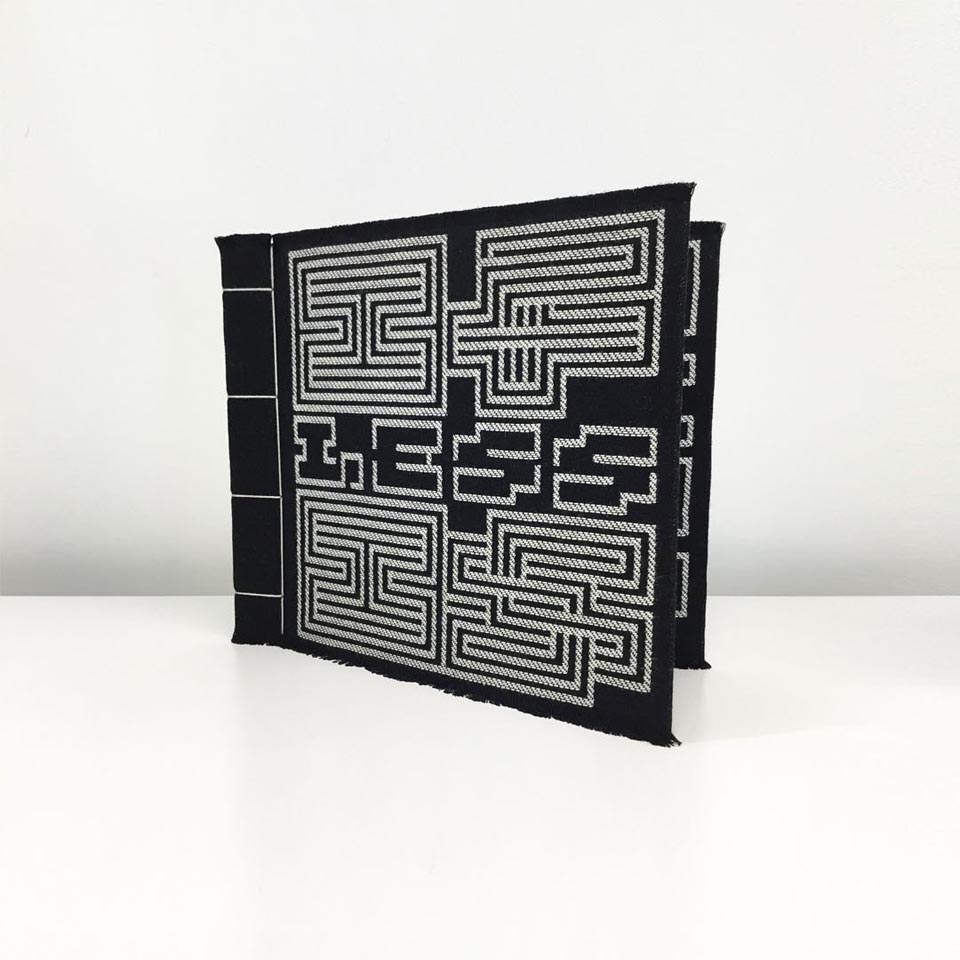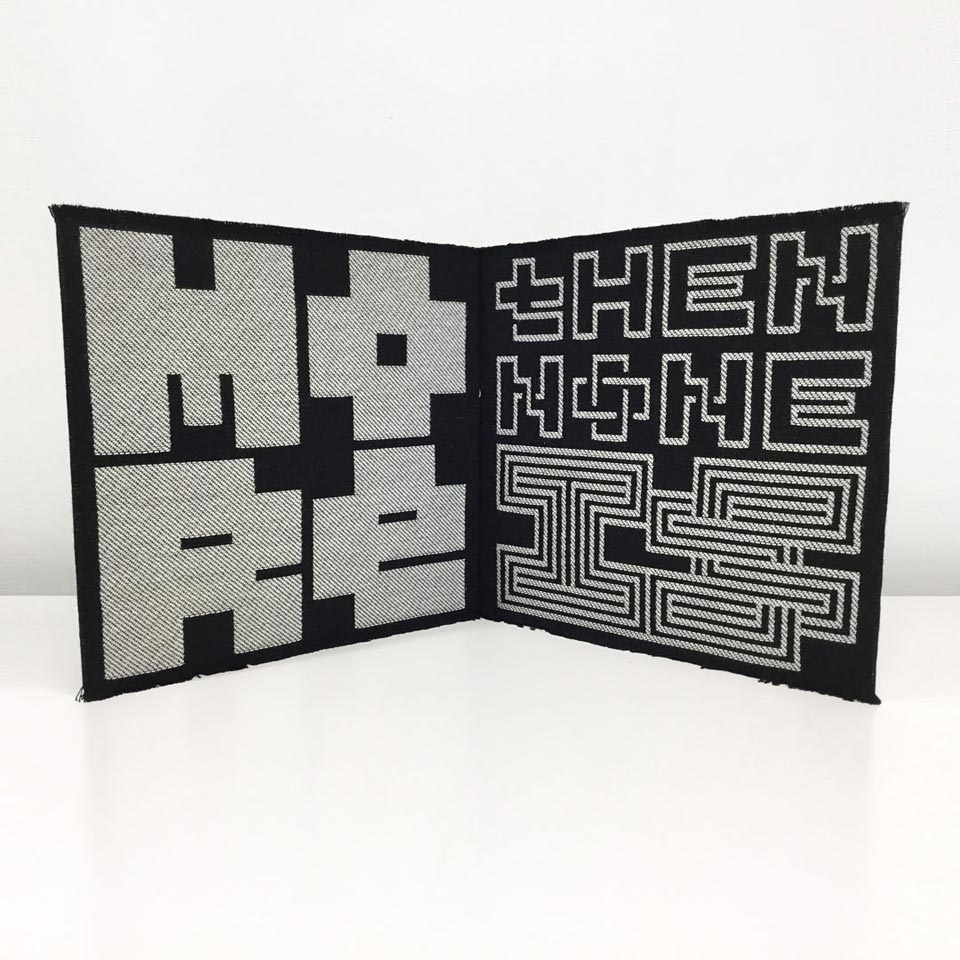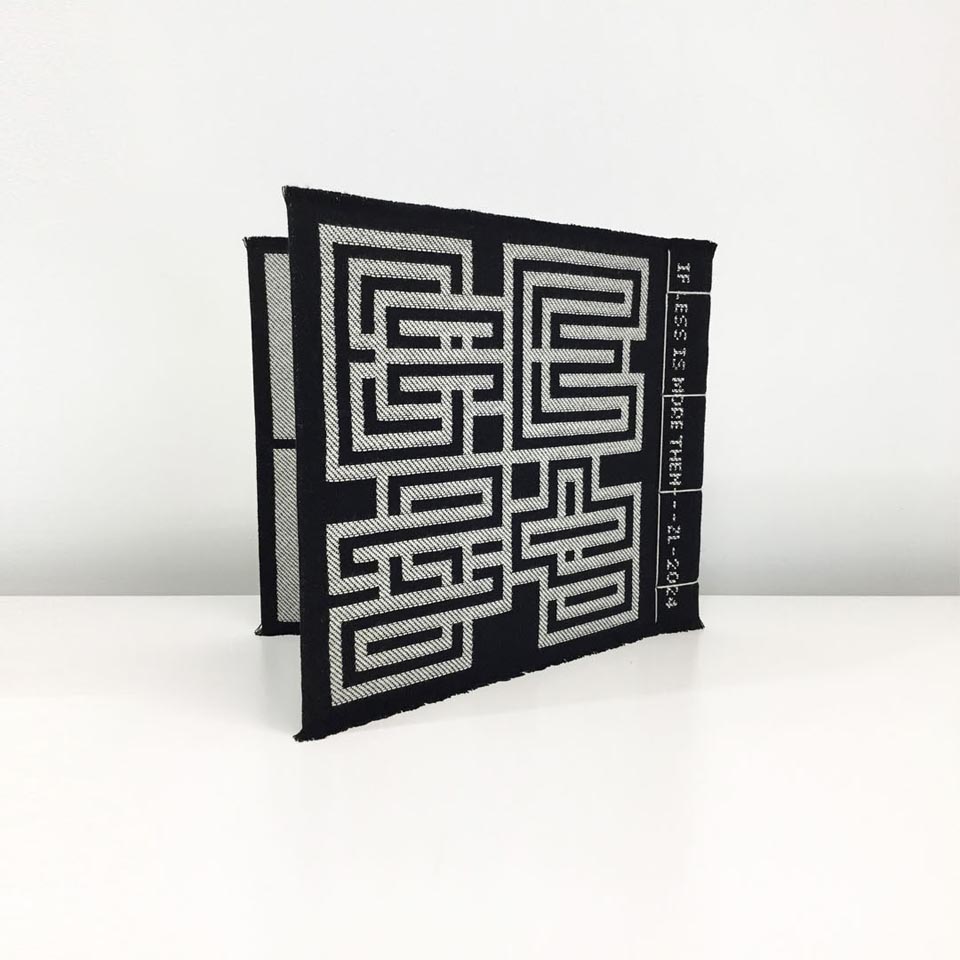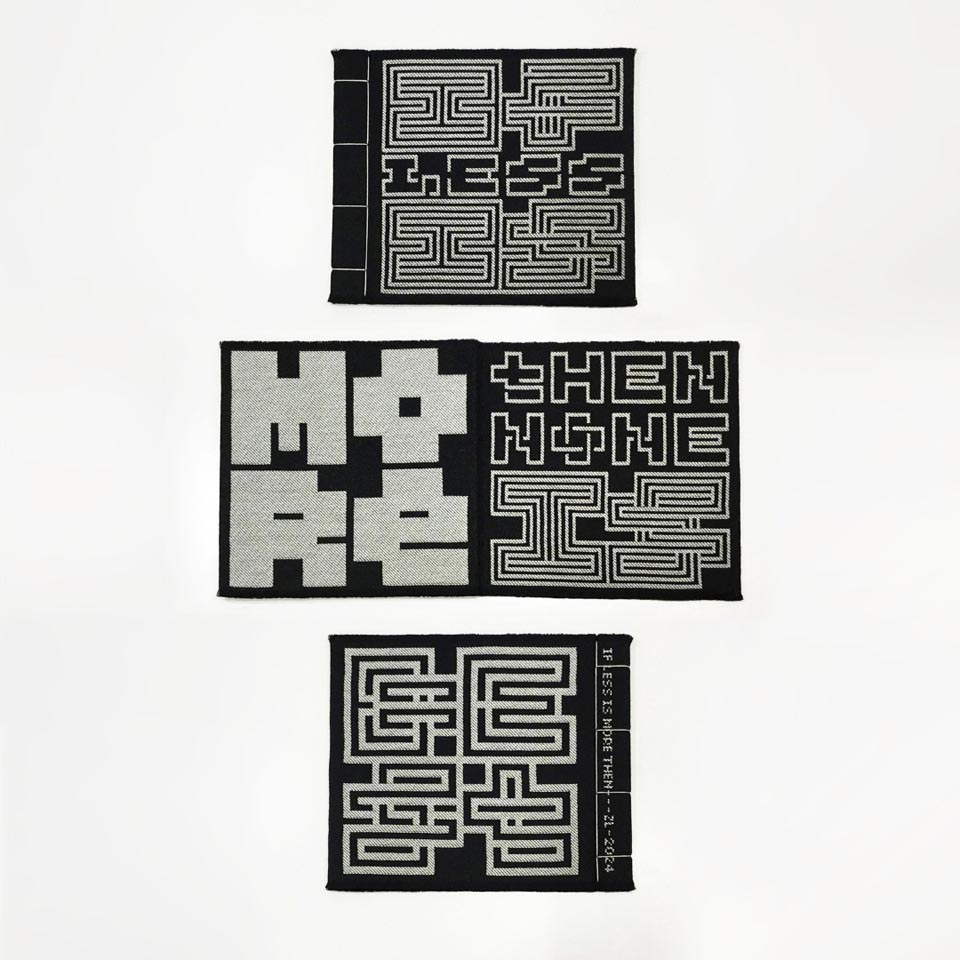
“If less is...” Woven Book
"If less is more, then none is best."
From a series of book objects that plays with type as abstraction, exploring the boundary between letterforms as pattern versus their legibility.